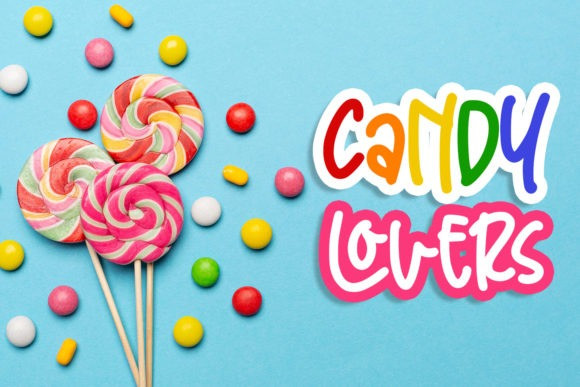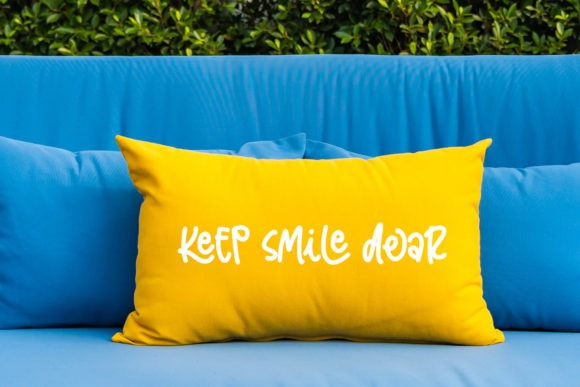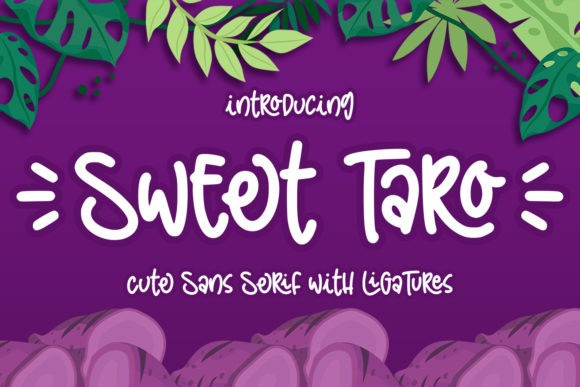
Sweet Taro Font
Sweet Taro Display Font is a cute, quirky and fun looking handwritten font. It is PUA encoded which means you can access all of the glyphs and swashes with ease!